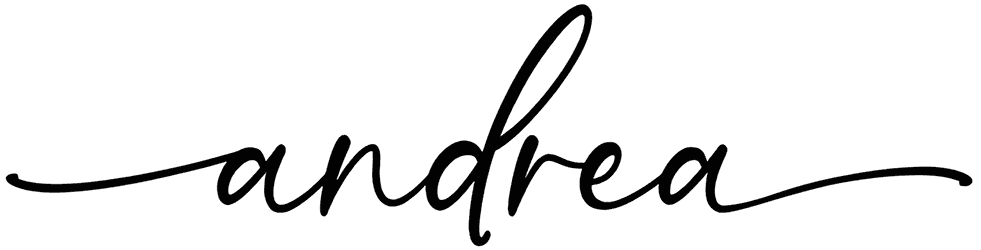
Andrea Font
There is nothing more tempting than a lovely dream font, such as the Andrea that comes with a cursive style and looks insanely perfect for any kind of creative ideas.